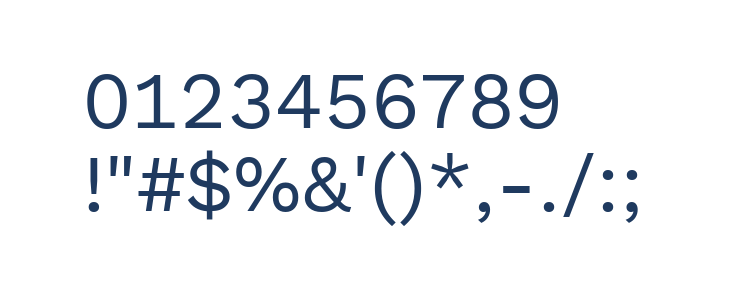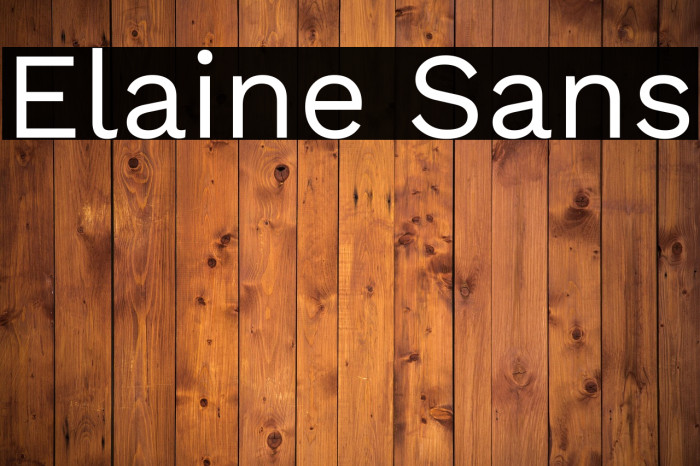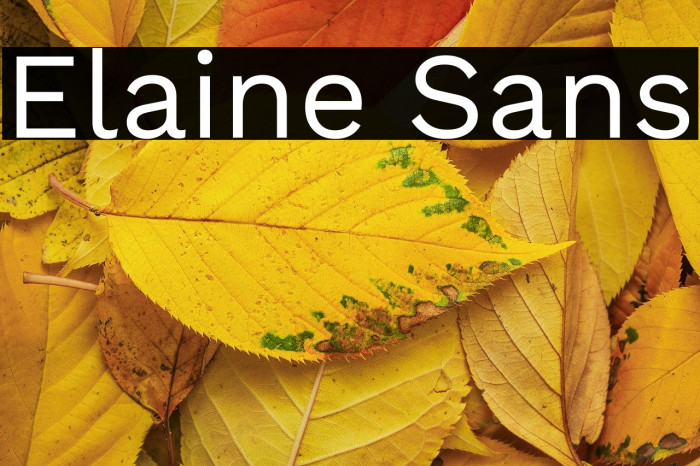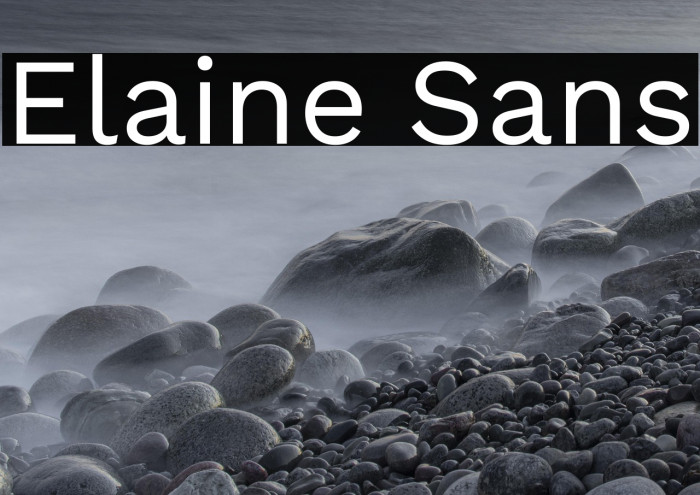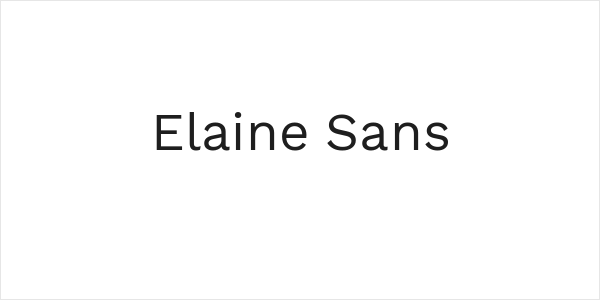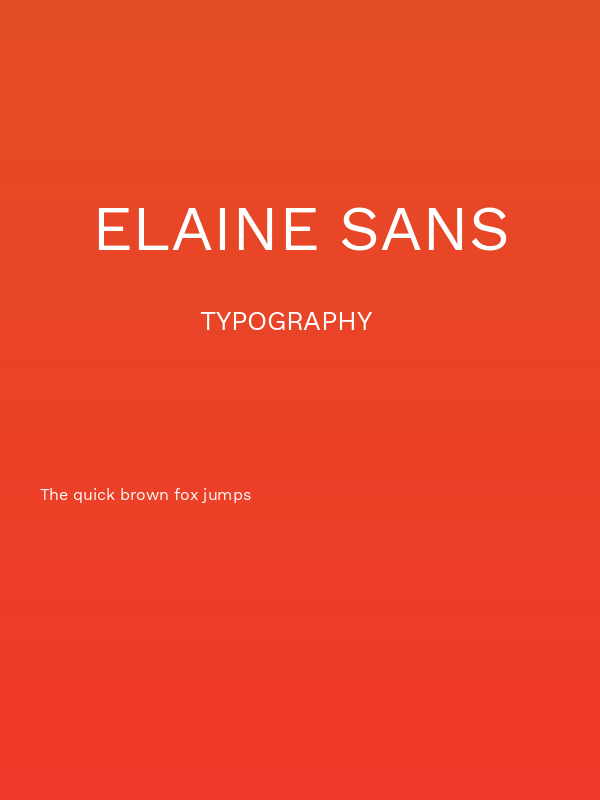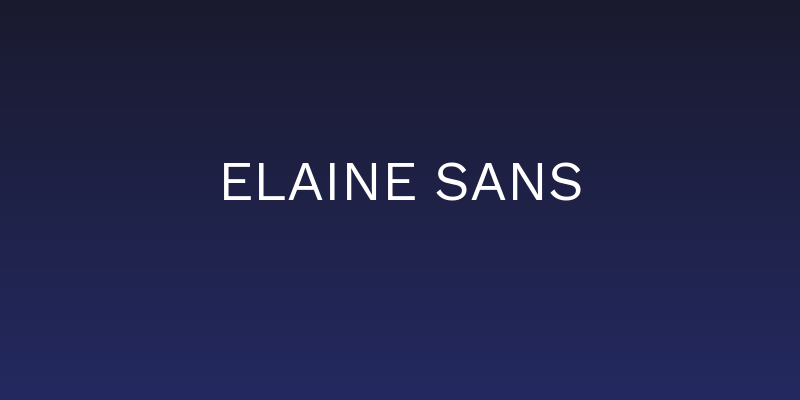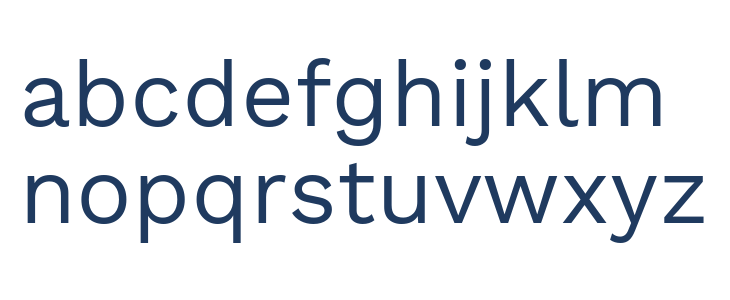
Elaine Sans Font
Elaine Sans Description
This typeface features a clean and modern sans-serif design, characterized by its simplicity and clarity. The letters are evenly spaced, with a consistent stroke width that gives it a uniform appearance. The uppercase and lowercase letters are well-proportioned, making it highly legible. The numerals are clear and distinct, matching the overall style of the alphabet. Special characters are included, maintaining the same design ethos, ensuring versatility in usage. This font is ideal for digital and print media, offering a professional and contemporary look.
| Proposed Projects | Ideal for branding, web design, corporate materials, and editorial content. |